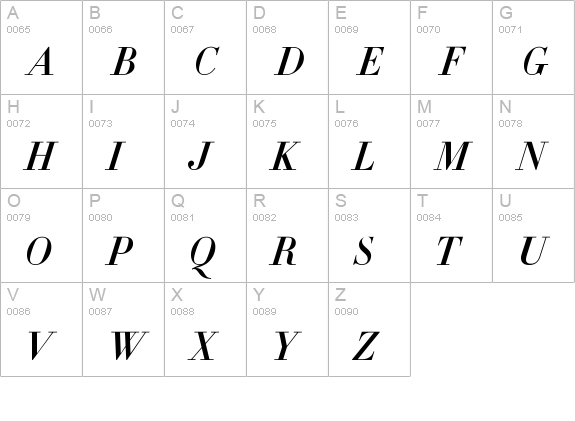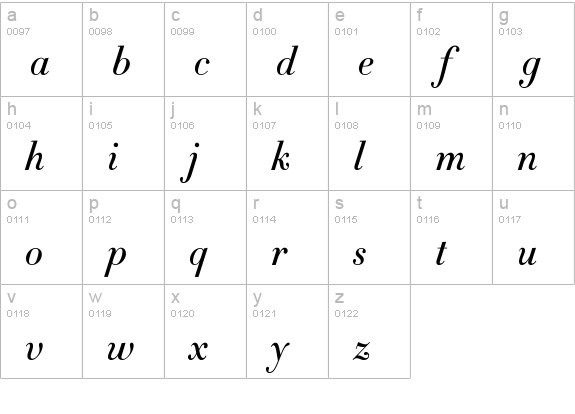
Didot-HTF-M11-Medium-Ital is a balanced, medium-weight variant in the Didot typeface family \xE2\x80\x94 well suited to sub-headlines, navigation, and balanced editorial work.
Didot-HTF-M11-Medium-Ital is an exquisite and elegant font that exudes sophistication and class. With its sleek and refined design, this font is perfect for adding a touch of luxury to any project. The medium weight and italic style of Didot-HTF-M11-Medium-Ital strike the ideal balance between readability and style, making it versatile for various design applications. What sets Didot-HTF-M11-Medium-Ital apart is that it is freely available to download at FontsMarket.com. This means you can easily access this premium font without any cost, making it a valuable addition to your font collection. Whether you are working on branding, editorial design, or any other creative project, Didot-HTF-M11-Medium-Ital is sure to elevate your designs with its timeless appeal and effortless charm.